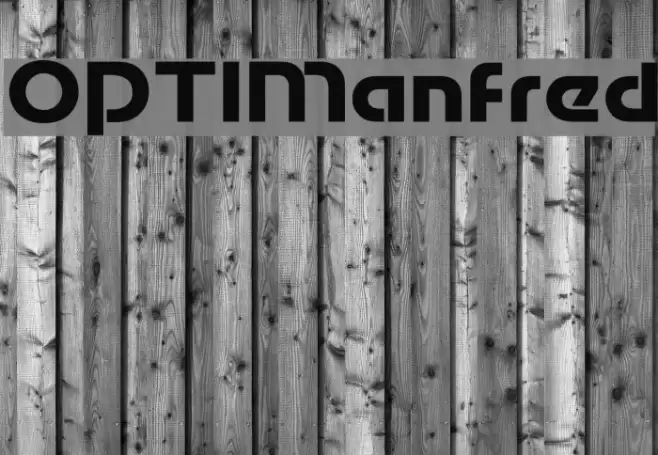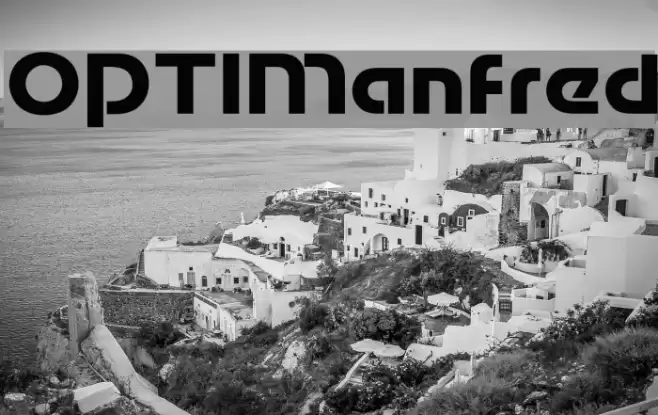
OPTIManfred Font
OPTIManfred Description
This font features a bold and geometric design with a futuristic flair. The characters are constructed with clean, sharp lines and a consistent stroke width, giving it a strong and assertive appearance. The uppercase letters have a distinct angularity, while the lowercase letters maintain a similar geometric style, ensuring uniformity across the typeface. The numerals and special characters are designed to match the boldness and modern aesthetic of the alphabet. This font's unique style makes it stand out, suitable for projects that require a contemporary and eye-catching typeface.
A bold, geometric font with a futuristic and modern design from Uncategorized fonts.
- Proposed Projects: Ideal for branding, headlines, posters, and digital media projects that require a modern and striking typeface.